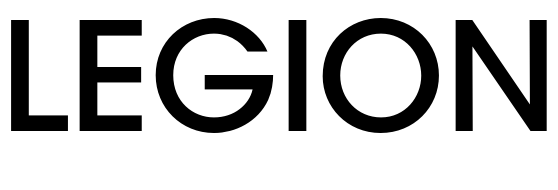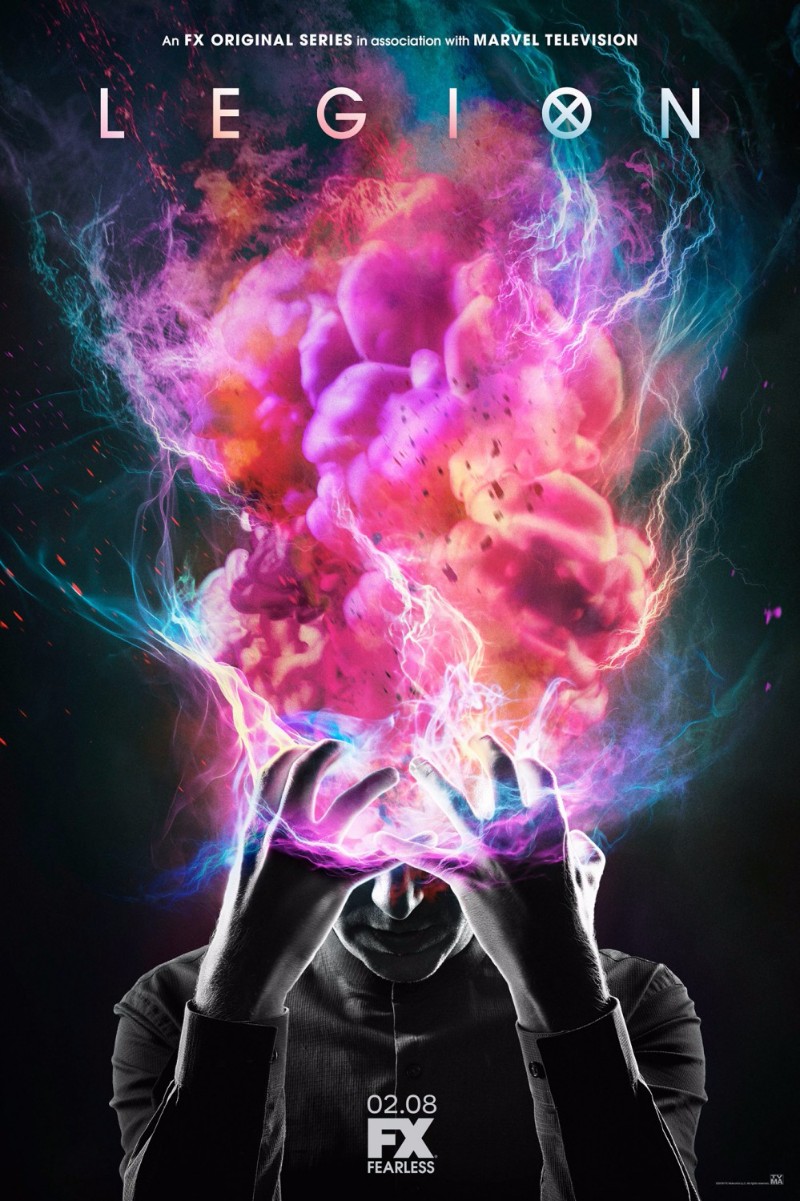
Legion (TV Show) Font
Fonts in UseLegion is a TV show based on the Marvel Comics character of the same name, following the story of a mutant with extraordinary powers and a troubled past who must confront his inner demons and fight against powerful forces trying to control him.
The TV show logo probably uses ITC Avant Garde Gothic Medium font with a modified "O". It's a geometric typeface by Herb Lubalin and Tom Carnase. A free alternative is Auvant Gothic Medium from OPTIFont, downloadable for free from the Fonts Used Section.